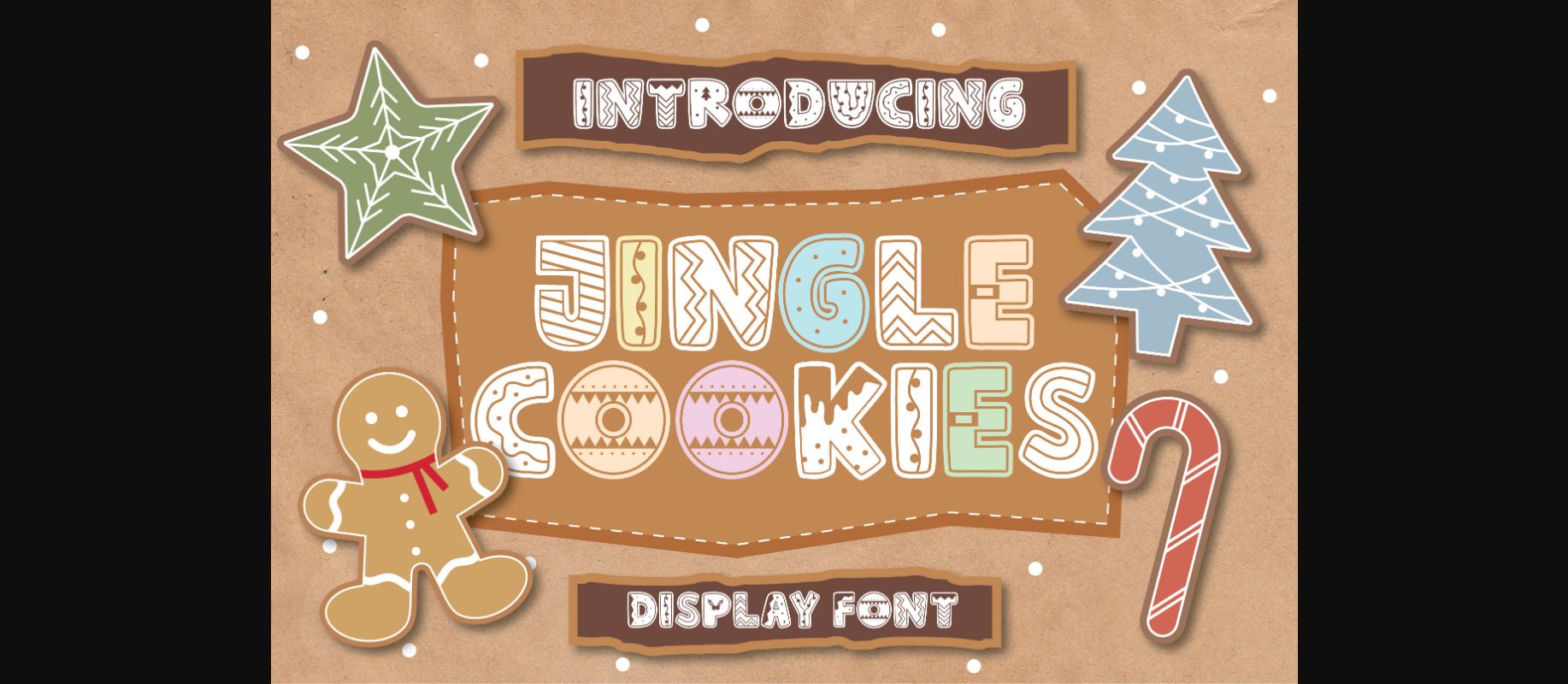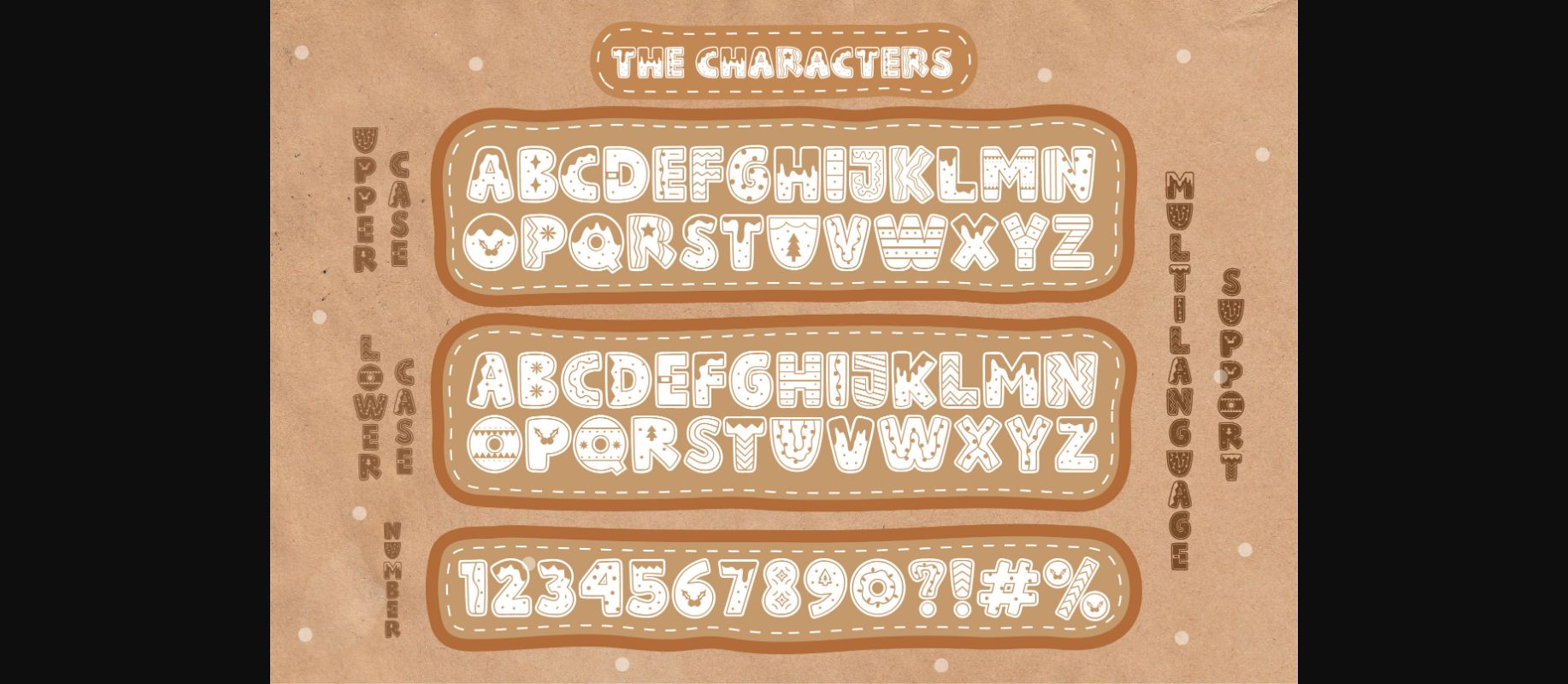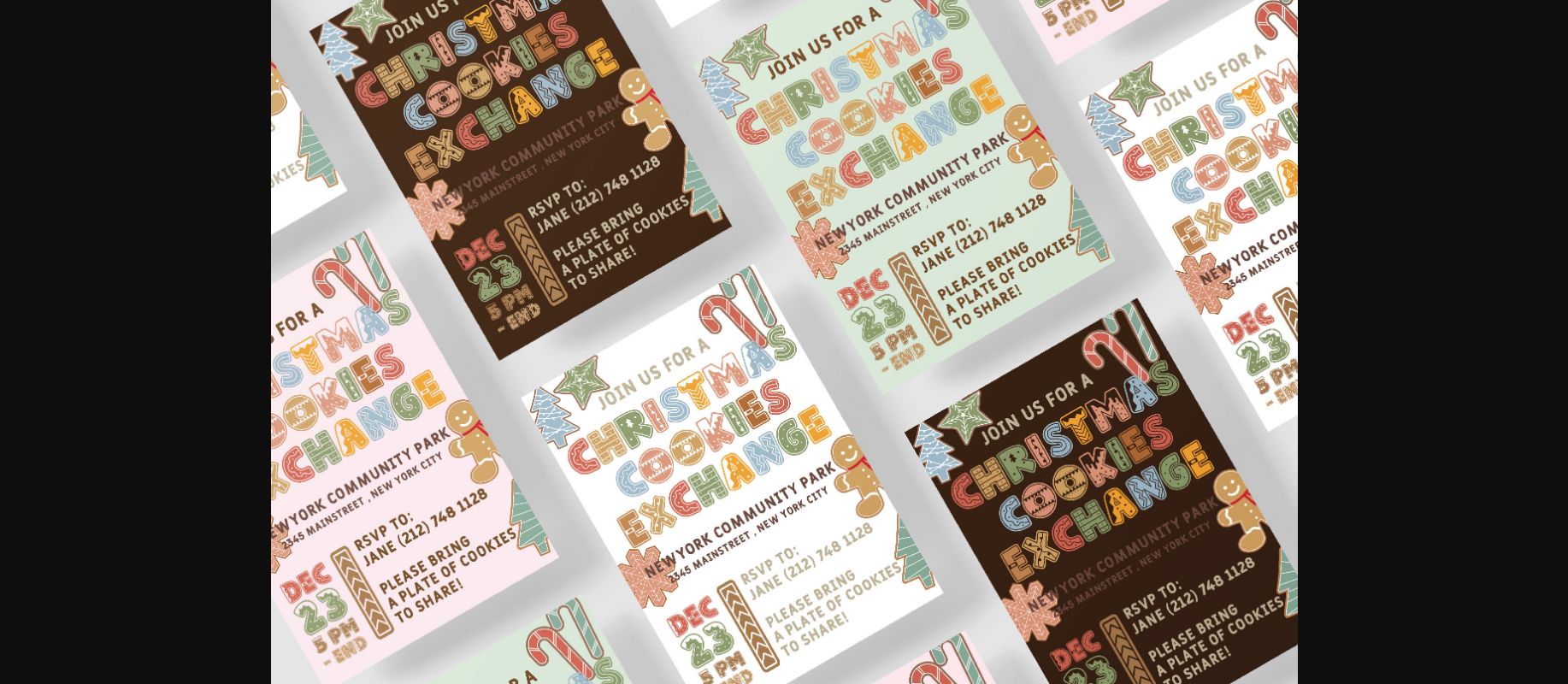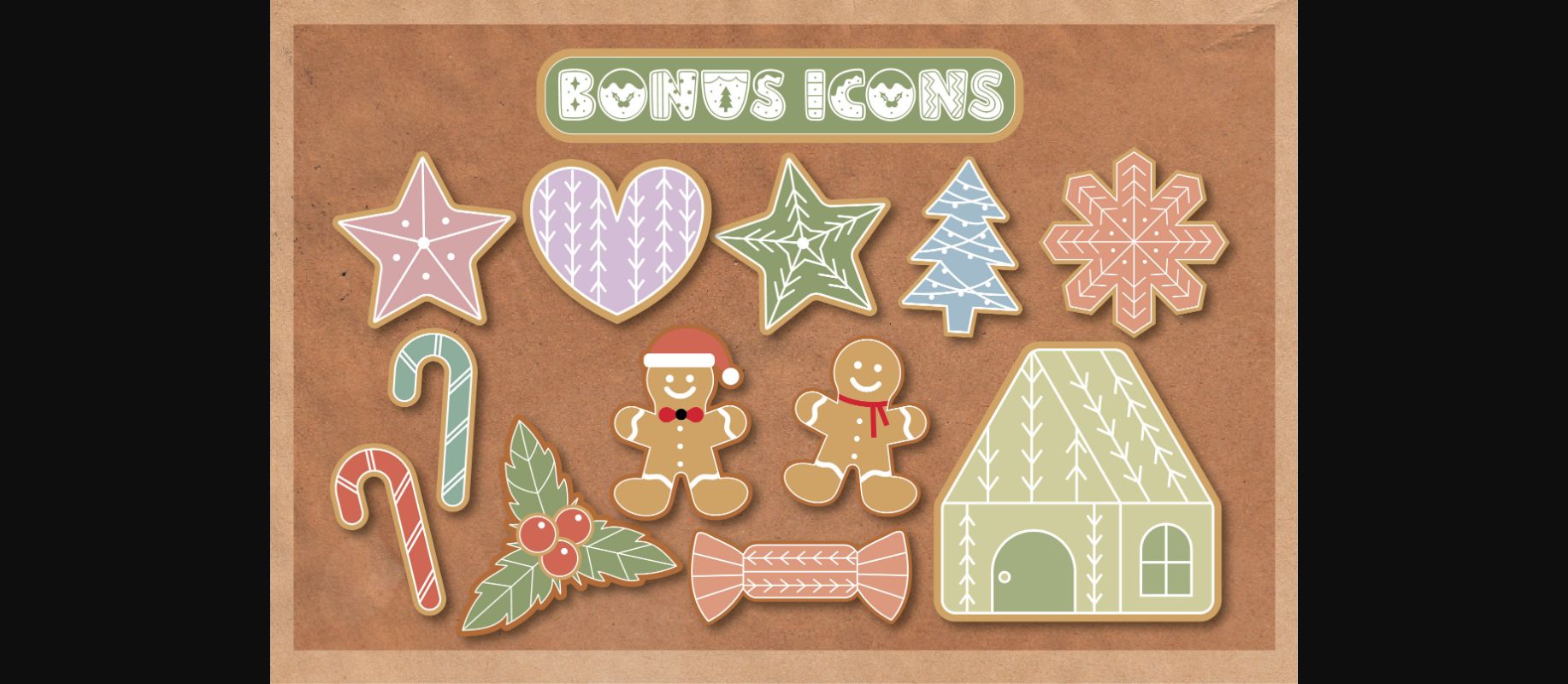
About Jingle Cookies Font
Jingle Cookies is a cozy and sweet decorative font. Add it to each of your winter holiday designs and notice how easily they come to life.